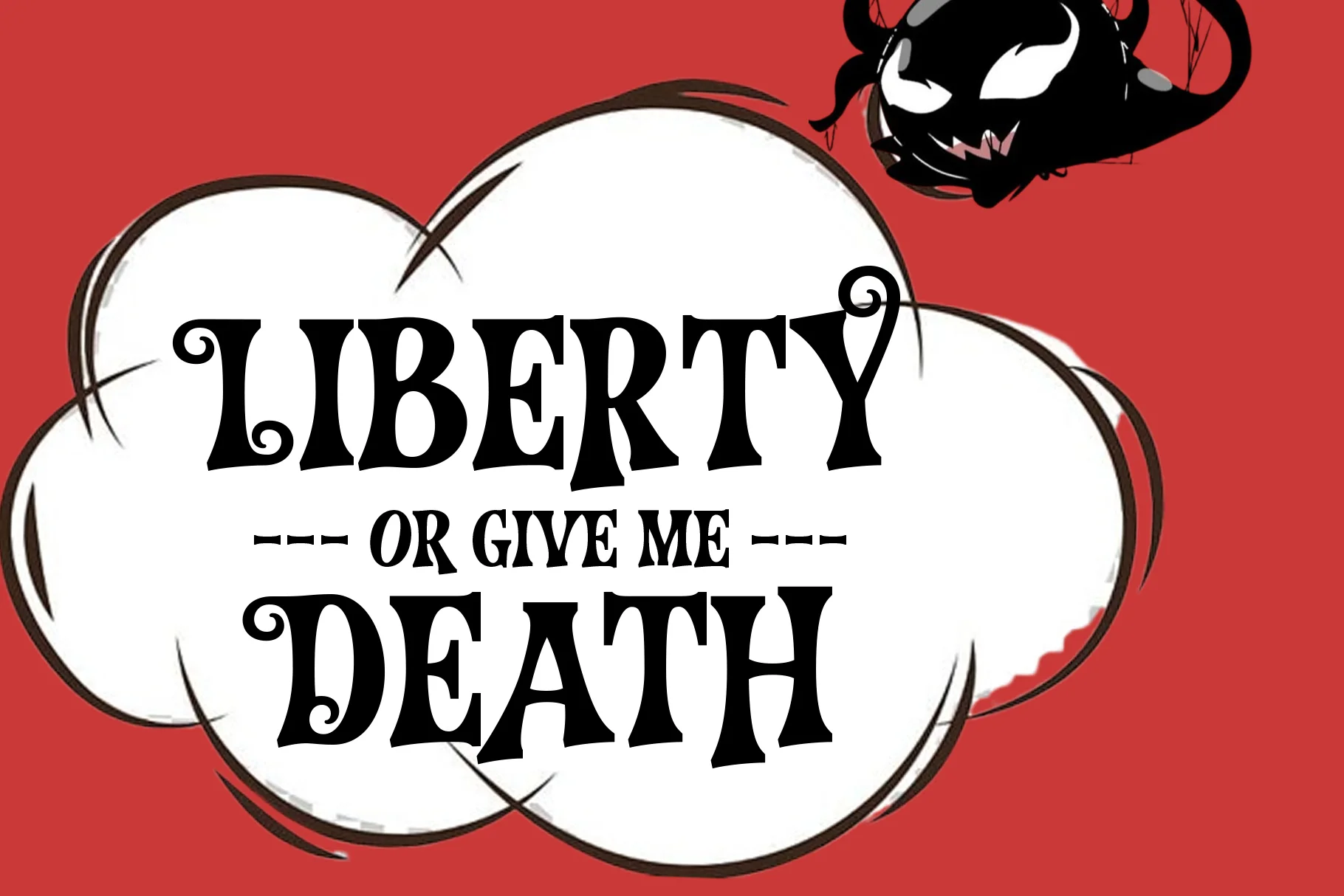
Horror Scream
Horror Scream is a bold and dramatic display font, utilizing signature curly ornaments to create a menacing and highly attention-grabbing classic horror aesthetic .The typeface is highly reminiscent of classic horror movie posters from the 60s or 70s, or the titles of gothic/horror comic books.
The Horror Scream font is perfectly suited for:
- Movie/Event Posters: Especially for horror films, series, or Halloween-themed events and parties.
- Video Games: In the logo or titles of horror or mystery games.
- Branding & Logos: For brands focused on dark, Gothic themes, or unique, spooky-themed products.
- Headlines: For magazines or articles discussing mystery or horror content.